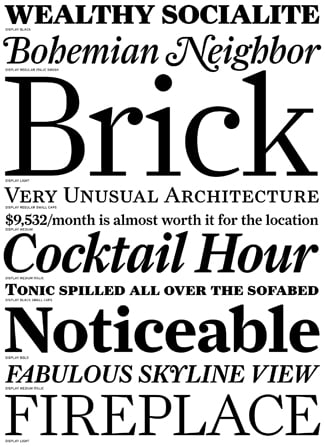
From the Font Bureau comes Farnham, a new typeface by Christian Schwartz with a sparkle in its eye.
Christian Schwartz has been a prolific creator of new typefaces in the last several years, for several different digital foundries. His latest, for the Font Bureau, is Farnham, a text and display family based on -- or at least inspired by -- the work of the 18th-century punchcutter Johann Michael Fleischman.
Figure 1: A variety of styles of Farnham Display.
Fleischman's types have inspired a number of recent designs, after being generally neglected during most of the 20th century. The most thorough is Erhard Kaiser's studious revival, DTL Fleischmann, which is particularly notable for including the peculiar spurred serifs that appear on some of Fleischman's original designs. (Because of the scalability of digital type, this serif style is more noticeable in Kaiser's digital revival than it probably was in Fleischman's hand-cut metal types.) DTL Fleischman echoes its original in another way, too: Erhard Kaiser is a German type designer, working for a Dutch type foundry (the Dutch Type Library); Johann Fleischman was himself a German, born near Nuremberg in 1707, though he made his career in the Netherlands, largely with the Enschedé foundry in Haarlem. (Fleischman's name may have been spelled originally with two final n's, like a German name, but it's usually spelled Dutch-style with only one.)
Fleischman's types influenced Matthew Carter when he designed Fenway, commissioned as a custom magazine typeface in 1998. Although Fenway is no revival (Carter rarely indulges in direct revivals), the roman is in part inspired by Fleischman's 8pt newspaper type of 1745 -- one of the very first types created specifically with newspaper text in mind. (The italic of Fenway is inspired by an italic type cut by Fleischman's contemporary at Enschedé, Jacques-François Rosart.) Fleischman's types were also one of the inspirations behind Mercury (1997–99), designed by Tobias Frere-Jones and Jonathan Hoefler; Mercury too began life as a display face, and was later expanded into a text family for newspapers.
Farnham's Inkhold
Farnham is clearly not a direct revival either, though the influence of Fleischman is obvious. In fact, says Christian Schwartz, Farnham began as a "purely speculative" design: "It was originally conceived as Amplitude Serif, but that idea went by the wayside fairly quickly when I realized it was converging with the Fleischman characters I had been sketching a lot during that period. Fleischman had the angularity and tension I was interested in focusing on, without needing any of Amplitude's gimmicks. In the end, I think the two faces are sympathetic to each other -- and work well together -- but aren't formally related aside from a few vestigial ink traps, which I left in because they allowed me to extend the curves on top of the arches as far as possible."
Figure 2: Some of the details of Farnham's design that give the typeface its visual sparkle.
The "ink traps" -- wedges of white cut into the letter where one stroke meets another, which were first introduced into type design during the phototype era to compensate optically for the way these angles tended to fill in when the film was exposed -- help to give Farnham some of its "sparkle," the most noticeable feature of Johann Michael Fleischman's metal types. Another way that Schwartz gives the letters sparkle is by making many of the strokes themselves slightly wedge-shaped, tapering toward one end instead of having straight, even edges. Some of the serifs, too, are wedge-shaped, though others are thin and flat.
Figure 3: The stress is vertical, but some of the horizontal strokes are wedge-shaped.
Overall, the characters have the sort of rounded, closed-in-upon-themselves compactness that is often seen in typefaces for newspapers or magazines. But Farnham wasn't originally designed with that in mind. "I didn't necessarily set out to design a magazine face," says Schwartz, "but the aggressive forms naturally lend themselves better to a magazine than to newspaper or book design. One newspaper designer tested it for about ten minutes before declaring it to be 'much too scary' for her client's readers."
Figure 4: A text sample set in Farnham Text Regular and Italic.
Nonetheless, Farnham has already seen service in publication design. "When the Display was about halfway finished, Michael Lawton at Men's Journal (who has since moved on to Popular Mechanics) called up, looking for a new serif face. He liked Farnham enough to throw some money at me to finish it up a little faster, but beyond a few strange requests for alternates (a ball-less J and j; a Jenson-style R; and bigger French quotes, if I remember right) he didn't really have -- or want -- any input into the design."
Displayful & textish
Schwartz designed two versions of Farnham, one for text and one for display; each series has several weights. The differences between the text and display designs are subtle, and don't always go in the directions you'd expect. Apart from a few exuberant capital-letter forms that are present in the Display Italic but not in the Text Italic, it's sometimes hard to tell which is which. If they're used right, of course, the difference is never obvious.
Figure 5: Farnham Display Regular Italic (top) compared with the Text Regular Italic (bottom).
"I took my clues from Miller," says Schwartz, "and wasn't afraid to make the differences subtle. Overall, the thins are a little bit thicker in the Text version, to make sure the junctions wouldn't be too brittle at small sizes. The ascenders and descenders are also a bit longer in the Text version. This runs counter to tradition, but makes sense in the context of contemporary publication design, where headlines are often set with very little leading but text is given adequate breathing room."